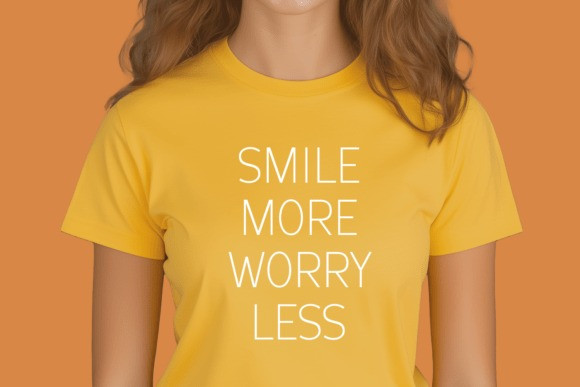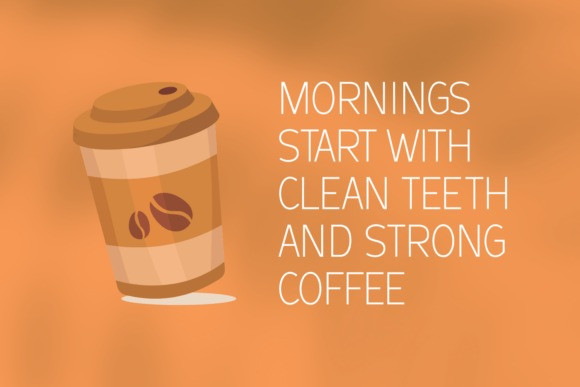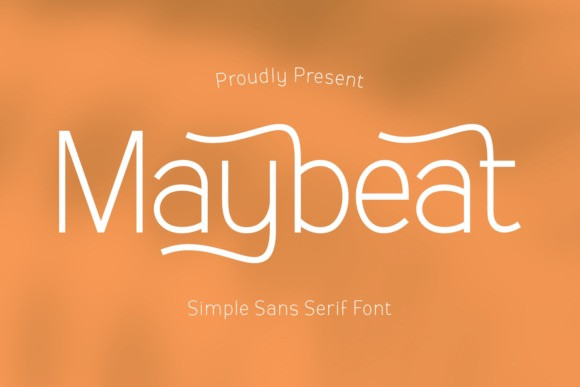
Maybeat Font is a simple yet stylish sans serif font with a unique wavy twist. Its clean lines are enhanced by playful curved accents, giving it a modern and creative edge while keeping a minimalist feel. Perfect for logos, branding, packaging, posters, and digital designs, Maybeat adds a touch of elegance and originality to any project.